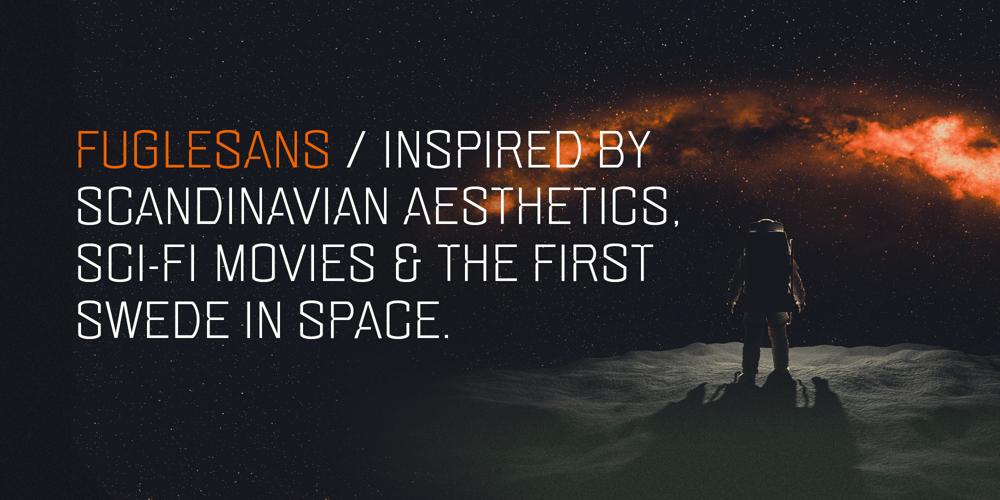
Fuglesans Font Family was designed by Björn Berglund and published by Björn Berglund Creative Studio. Fuglesans contains 3 styles and family package options. Fuglesans is a homage to the first Swede in space. The sans serif font is inspired by Scandinavian aesthetics, Sci-fi movies and space. Use it for visionary brands or designs that aspire to be high-tech, modern and futuristic. The font is currently available in 3 weights, Light, Regular and Bold, and comes with over 200 glyphs.